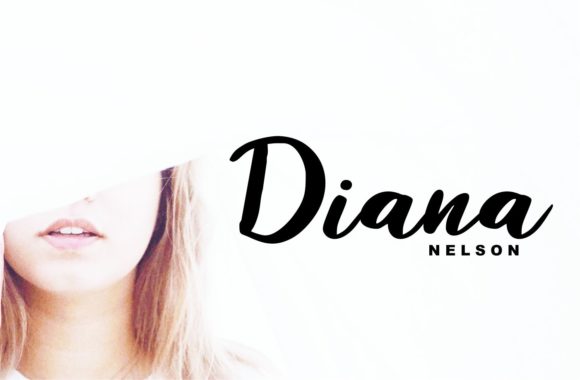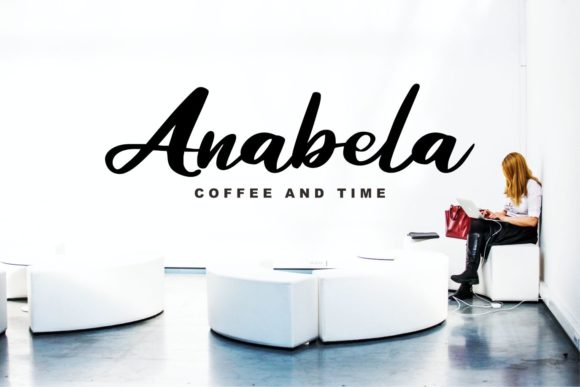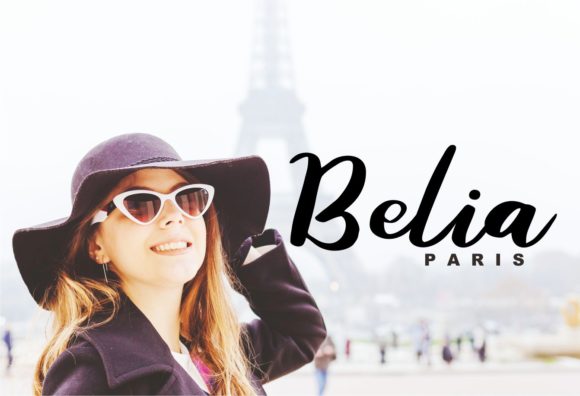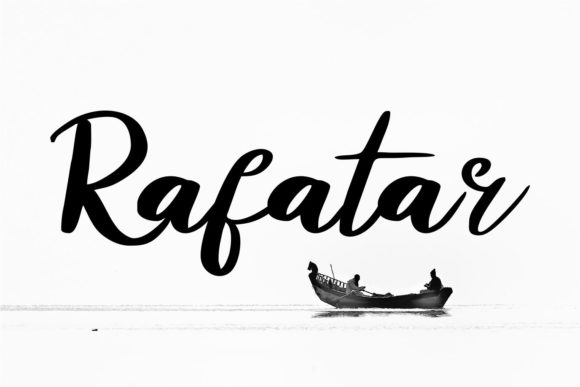
Zaskia Font
About Zaskia Font
Zaskia is a simple, yet stunning script with an incredible look. This stunning typeface will turn any crafts idea into a piece of art!